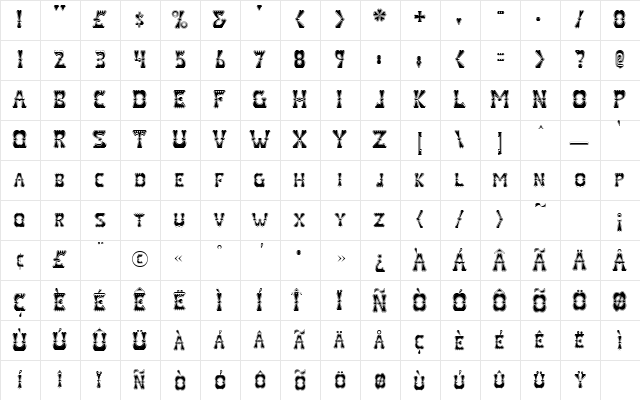
ValentinaContour Regular
Design Context for ValentinaContour
ValentinaContour is a composed and adaptable typeface that performs quietly and consistently across a wide range of design contexts.